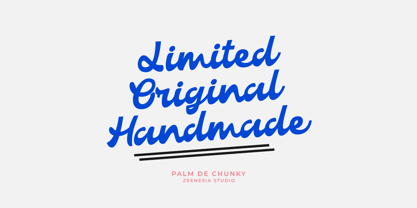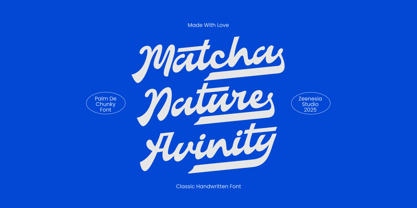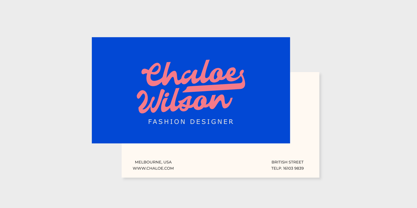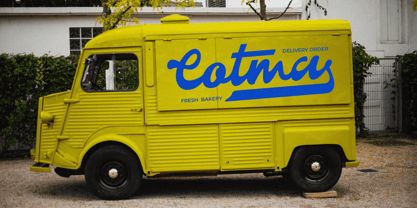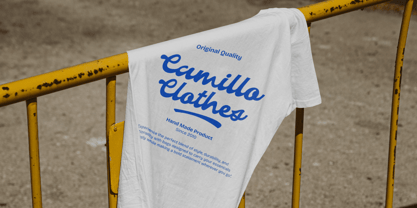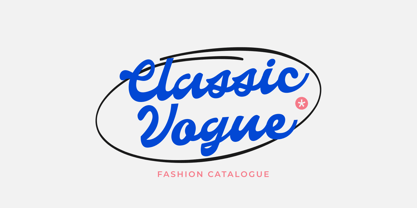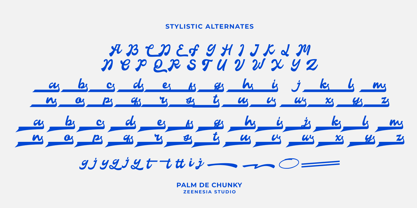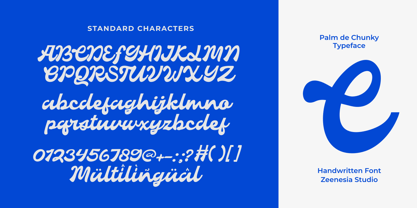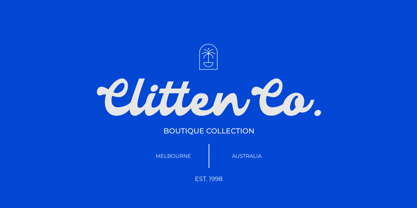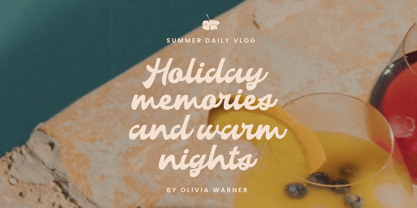
Palm De Chunky
by Zeenesia Studio
The Palm De Chunky Font Family was designed by Doni Purwoko and published by Zeenesia Studio. Palm De Chunky contains 1 styles.
Palm de Chunky is a hand-drawn script font that captures the authentic charm of handwritten lettering. Each stroke is crafted to feel natural vibe to your designs. With its chunky strokes and smooth curves. Ideal for logos, posters, packaging, social media, and creative branding, Palm de Chunky delivers a friendly charm that stands out while staying stylish. Every curve is crafted with love, making it a versatile choice for projects that need both personality and authenticity.
Designers: Doni Purwoko
Publisher: Zeenesia Studio
Foundry: Zeenesia Studio
Design Owner: Zeenesia Studio